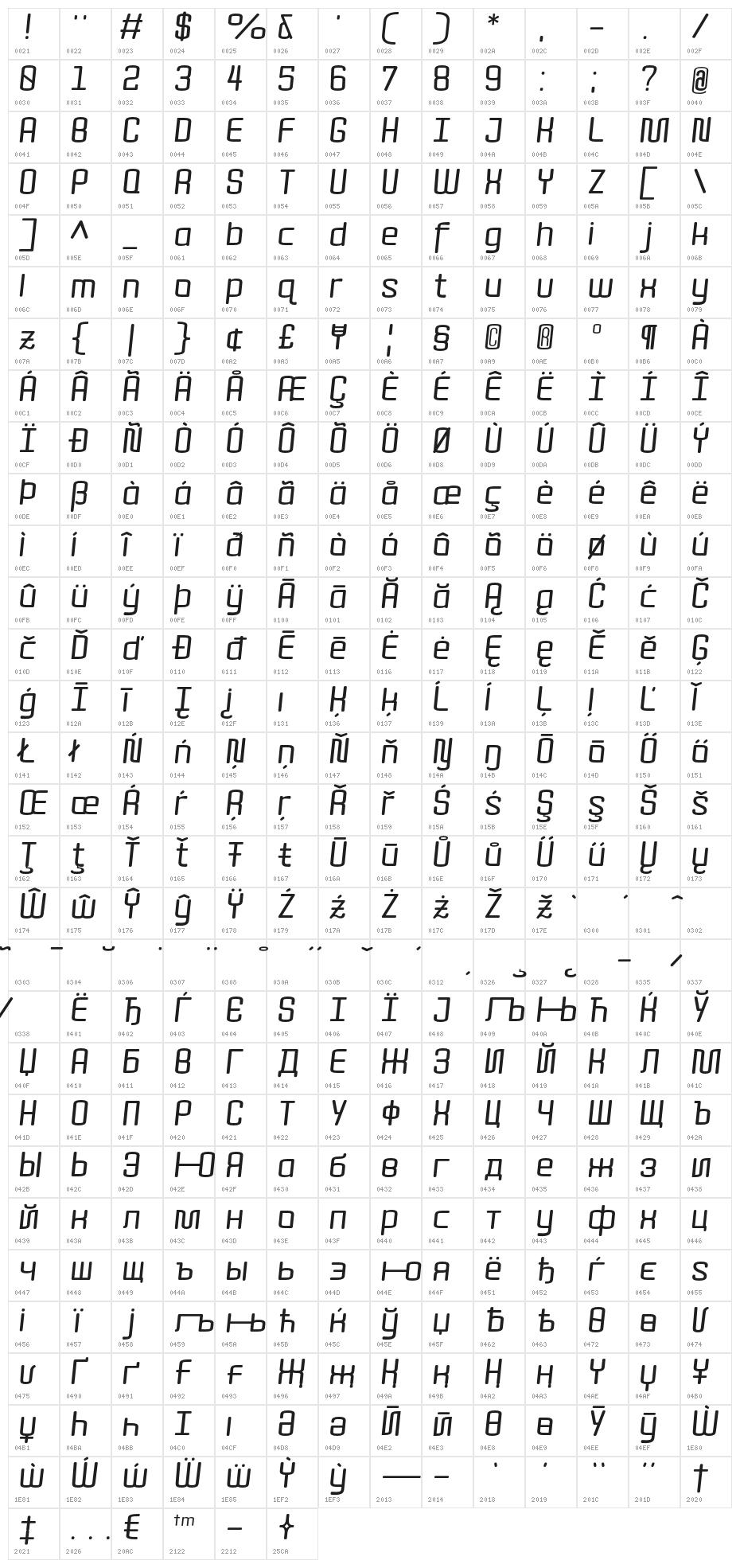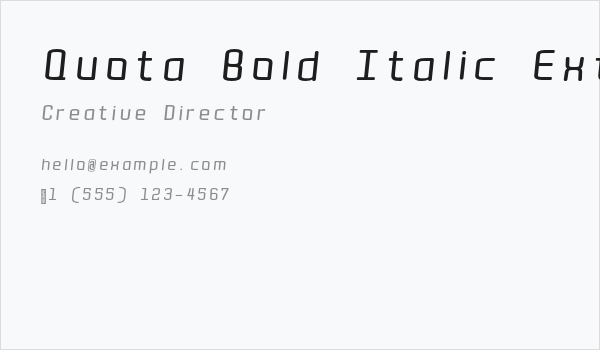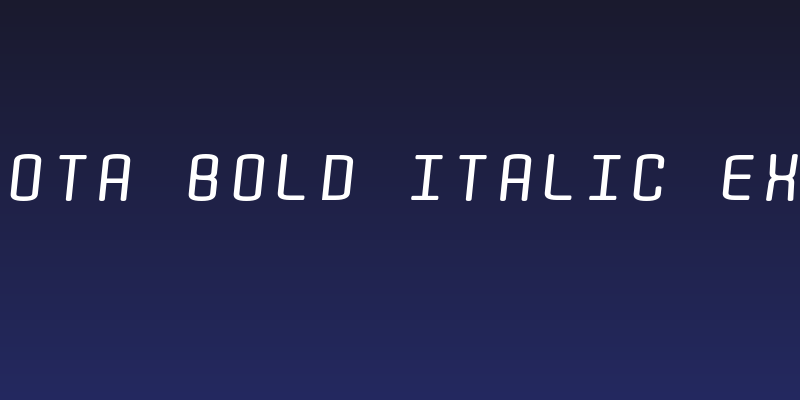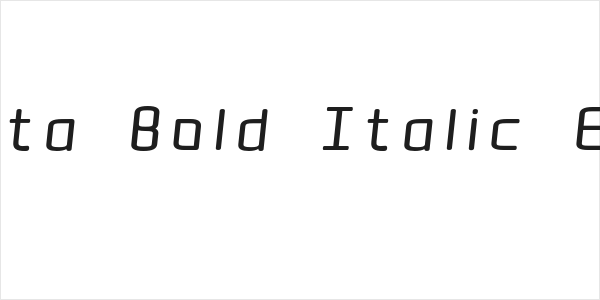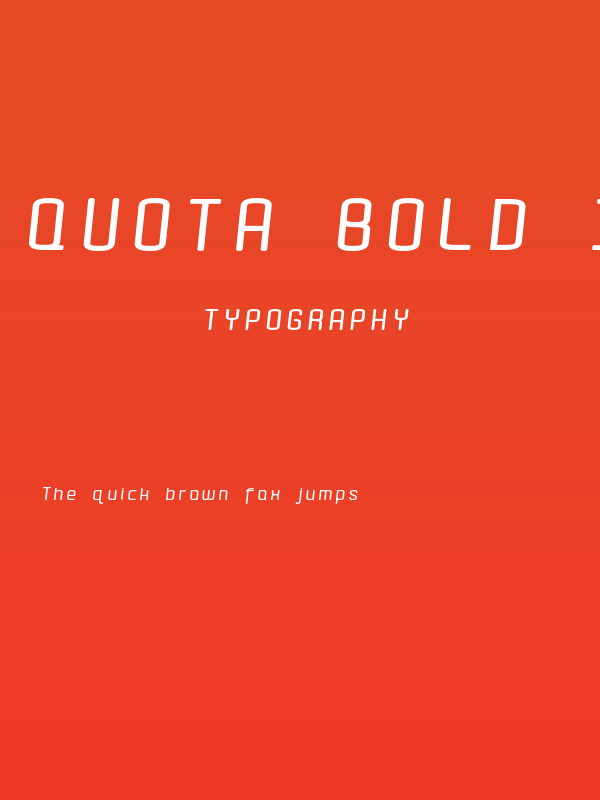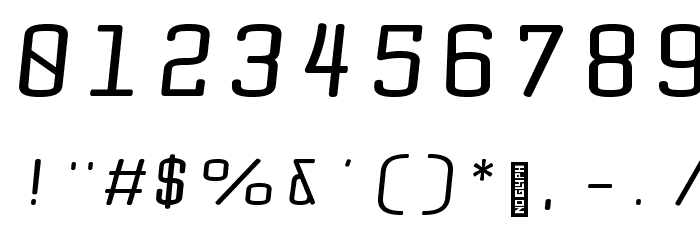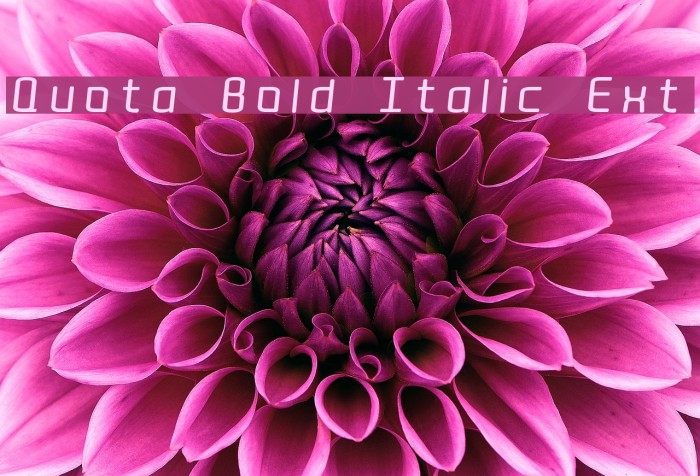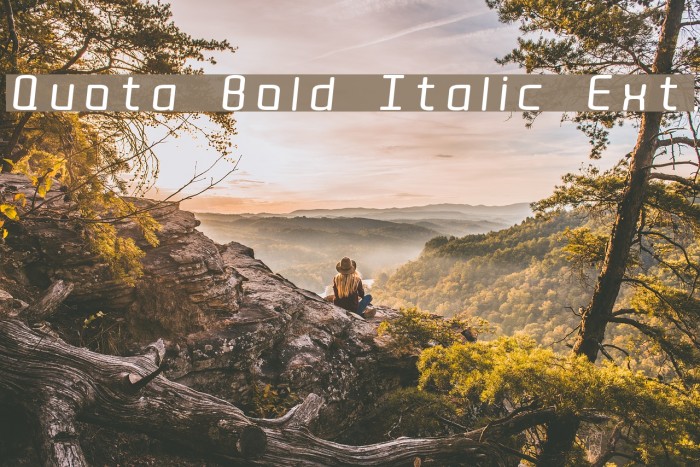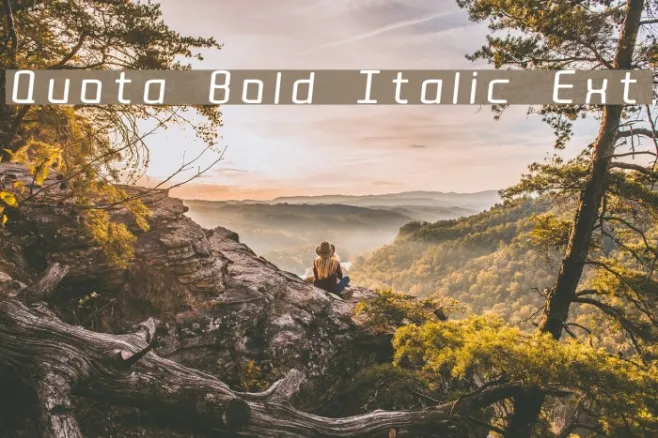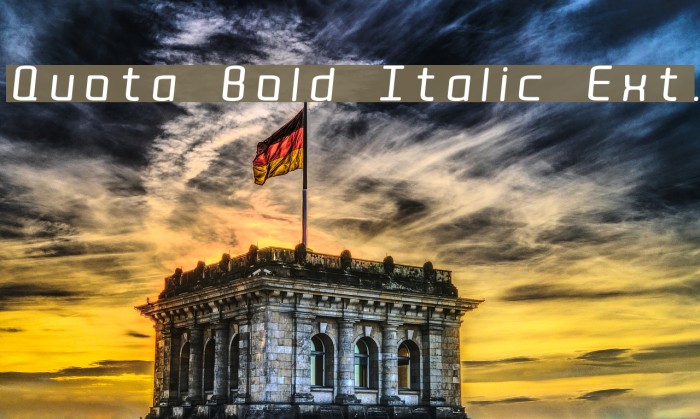
Quota Bold Italic Ext. Font
Quota Bold Italic Ext. Description
This font features a modern and sleek design with a bold and italicized style. The characters are slightly condensed, giving it a compact appearance. The uppercase letters are uniform in height, while the lowercase letters maintain a consistent baseline, enhancing readability. The numerals are distinct and align well with the overall style, making them suitable for various applications. The special characters are well-integrated, maintaining the font's cohesive look. The stroke contrast is low, providing a smooth and even texture across all characters.
| Use Case | Logos, Headlines, Digital interfaces |
| Proposed Projects | Ideal for technology branding, sports team logos, modern advertising, and digital interfaces. |